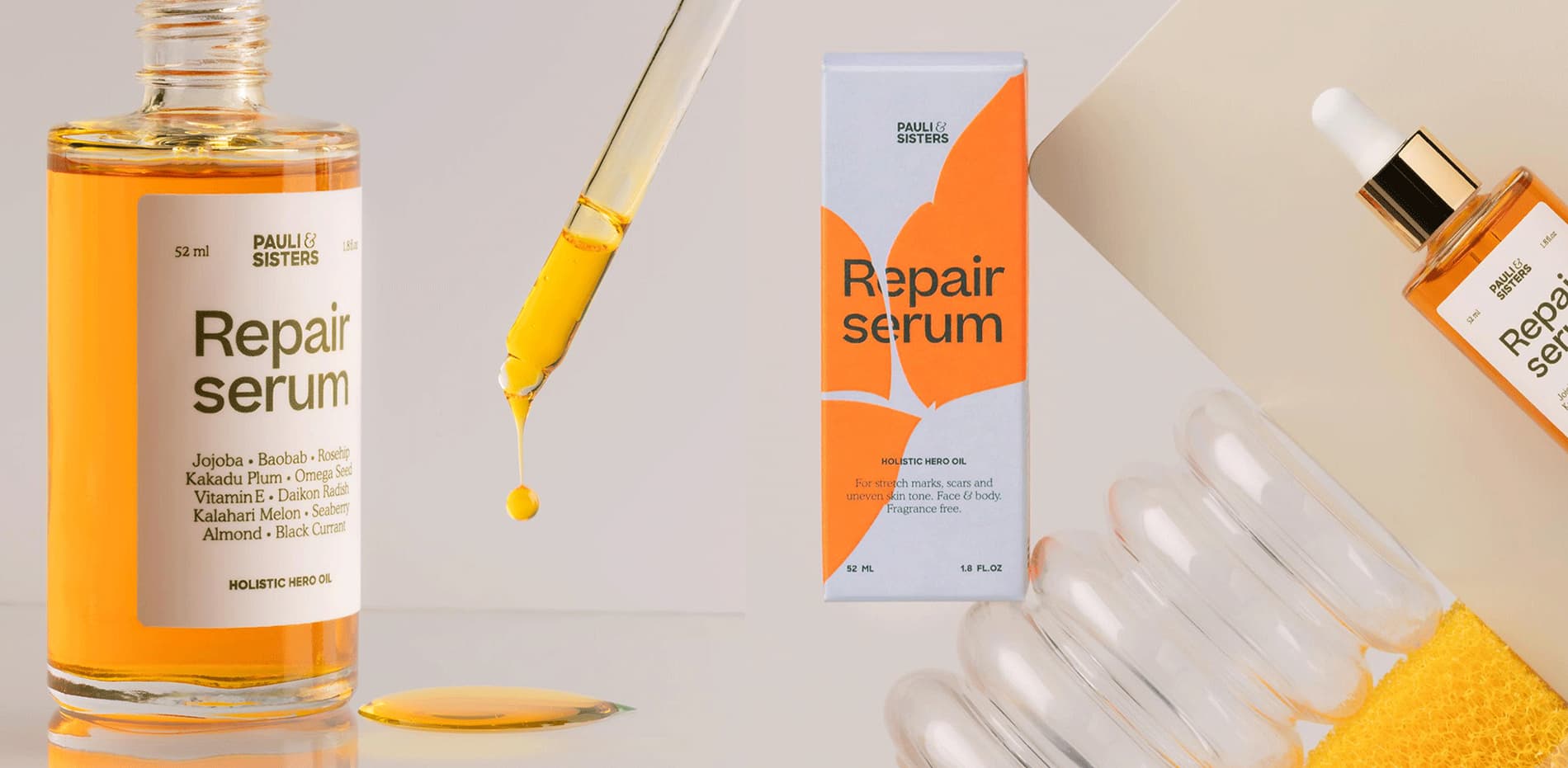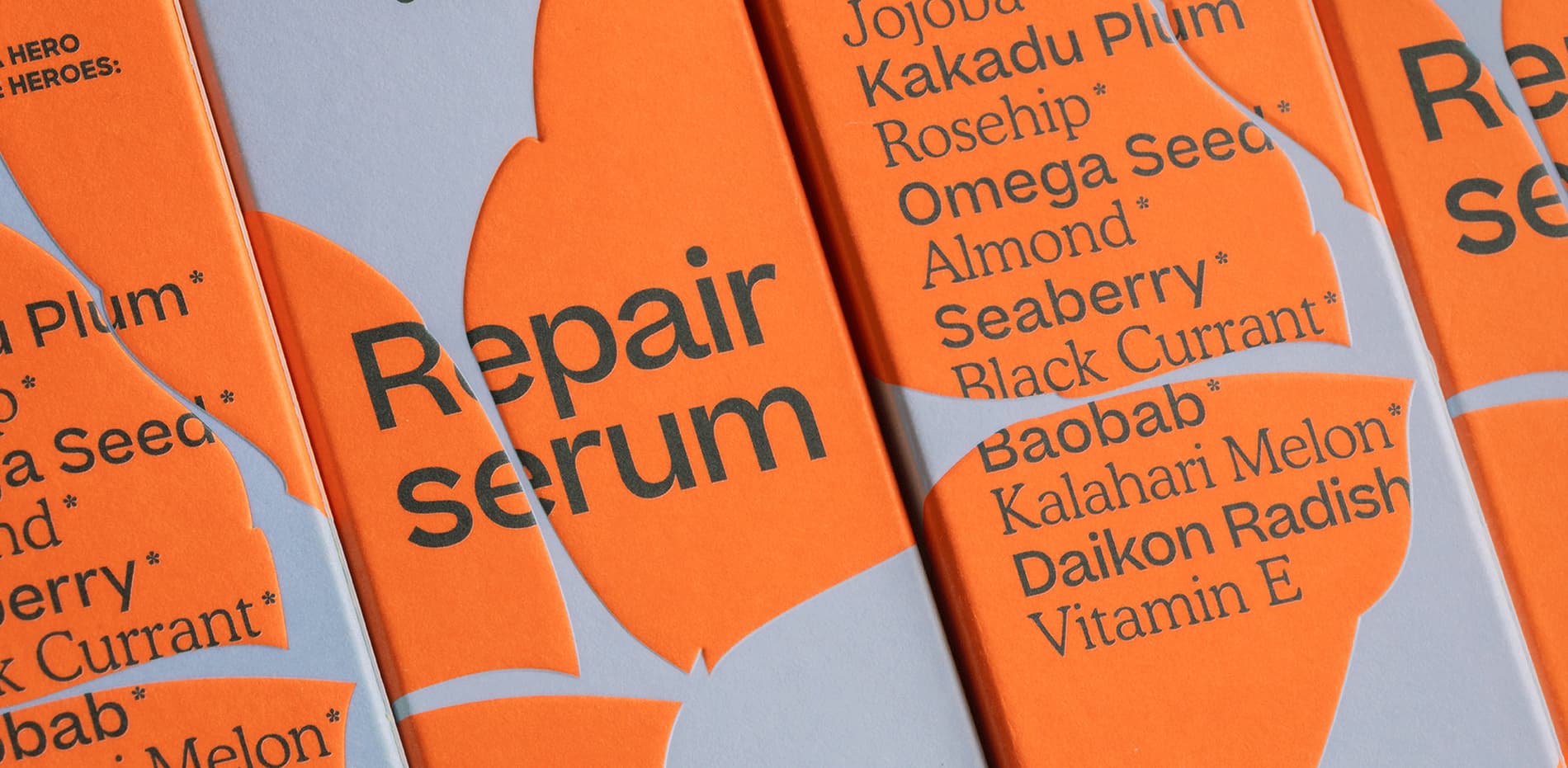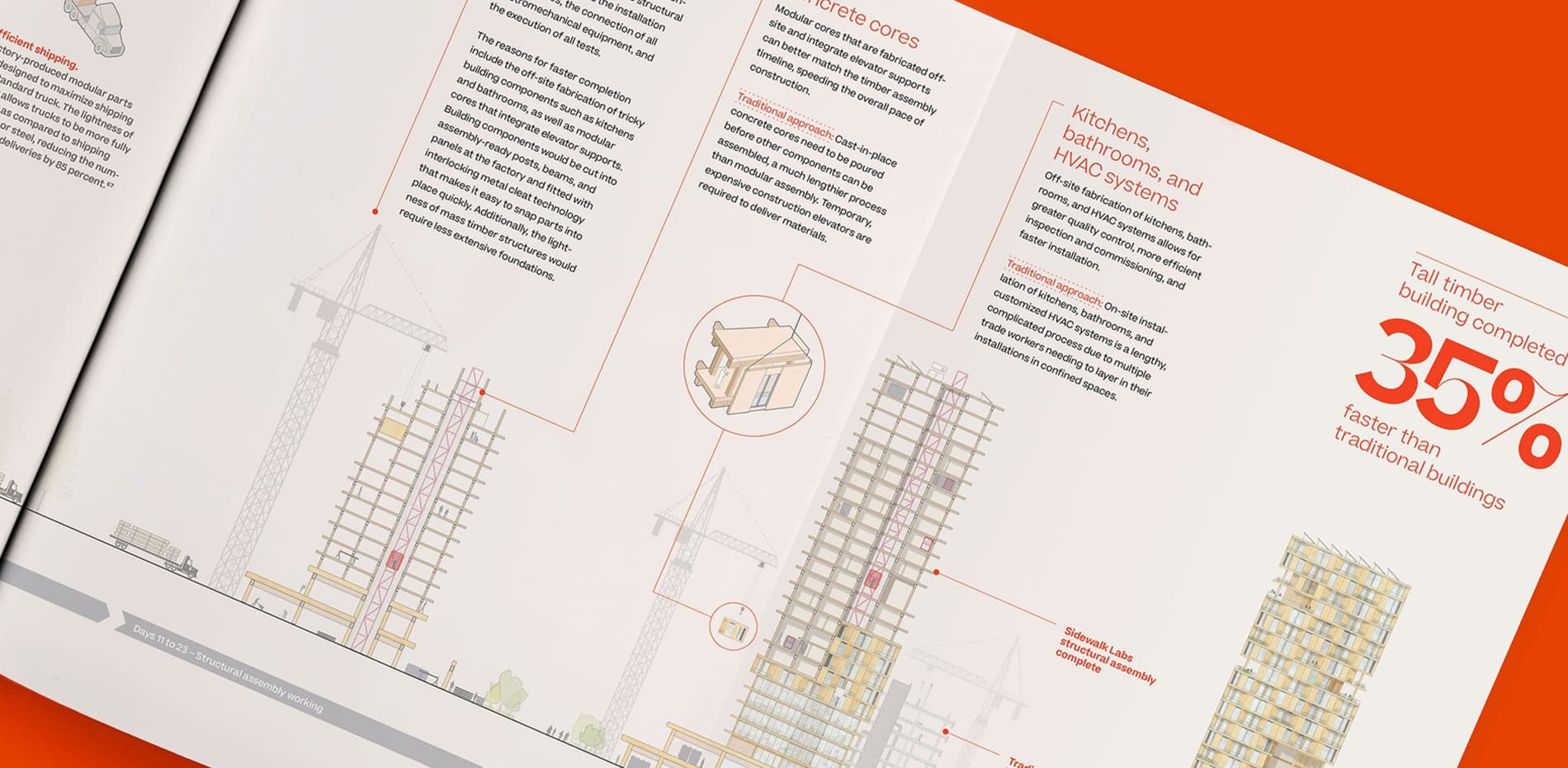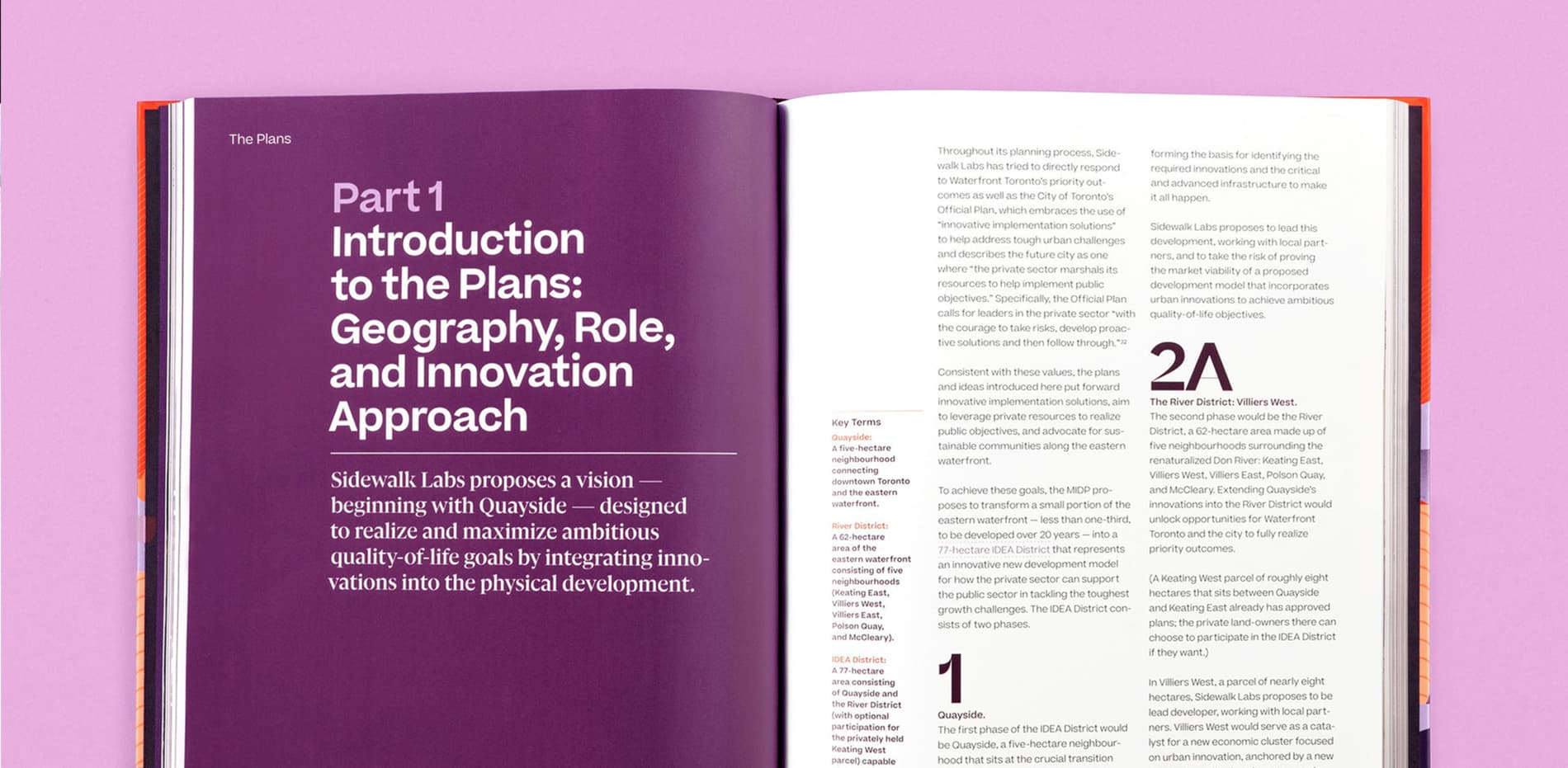
Beatrice Standard
While Beatrice Display, Headline, and Deck are all optical size variations of the same core architecture, Beatrice Standard has such a reduced contrast that its unique contrast system is only a subtle detail of this handsome and utilitarian typeface. Beatrice Standard can be used for smaller caption and text settings within the larger Beatrice Superfamily system, or simply as a stand-alone sans serif workhorse typeface.